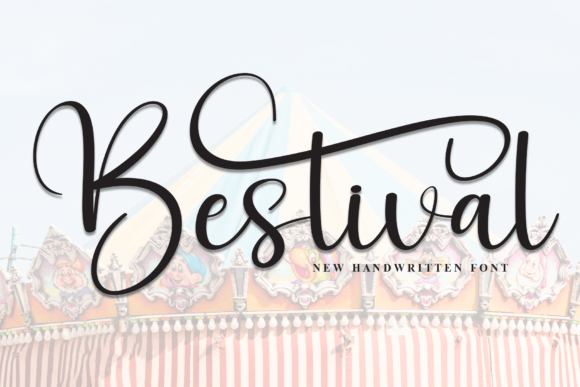
Introducing Bestival Font: Elevate Your Designs with Elegance and Charm
In the world of typography, a font can make or break the aesthetic of a project. For designers and crafters seeking to infuse their work with a touch of sophistication and modern flair, Bestival Font is an exceptional choice. This stylish handwritten script font is designed to bring elegance, warmth, and a personal touch to a variety of applications, from branding and invitations to social media content.
The Essence of Bestival Font
Bestival Font stands out with its flowing strokes and organic curves, which contribute to its unique charm. Unlike more traditional fonts, Bestival offers a refreshing blend of classic elegance and contemporary style. Its characters are meticulously crafted to convey a sense of refinement and luxury, making it an ideal choice for projects that demand a high level of sophistication.
Key Features of Bestival Font
- Elegant and Modern Design: Bestival Font boasts a stylish and modern appearance, perfect for designers looking to add a touch of class to their work.
- Handwritten Script: The font’s handwritten nature gives it a personal and approachable feel, making it suitable for a wide range of applications.
- Flowing Strokes and Organic Curves: These characteristics contribute to the font’s elegance and charm, setting it apart from more conventional typefaces.
- Versatility: Bestival Font can be used in various contexts, including branding, invitations, social media posts, and more.
Applications of Bestival Font
The versatility of Bestival Font makes it an excellent choice for numerous design projects. Here are some of the ideal applications for this beautiful typeface:
Branding
For businesses looking to establish a strong brand identity, Bestival Font offers a sophisticated and modern solution. Its elegant appearance can help convey a sense of luxury and quality, making it perfect for high-end brands, boutique businesses, and creative agencies.
Invitations and Stationery
Bestival Font adds a touch of class and personalization to invitations, greeting cards, and other stationery items. Its unique charm makes it an excellent choice for weddings, baby showers, and other special occasions.
Social Media and Digital Content
In the realm of social media, Bestival Font can help elevate your content and make it stand out. Whether you’re creating promotional graphics, quotes, or blog posts, this font’s elegance and modernity will undoubtedly capture your audience’s attention.
Why Choose Bestival Font?
With so many fonts available, why should Bestival Font be your go-to choice? Here are a few compelling reasons:
- Unique and Memorable: Bestival Font’s distinctive style ensures that your designs will stand out from the crowd.
- Easy to Read: Despite its elegant and cursive nature, Bestival Font remains highly legible, making it suitable for both headings and body text.
- Highly Versatile: This font can be used across various platforms and applications, from print materials to digital content.
Bestival Font is a stylish and sophisticated typeface that brings a unique blend of elegance and modern flair to any project. Its flowing strokes, organic curves, and handwritten charm make it an ideal choice for designers and crafters looking to add a personal touch to their work. Whether you’re working on branding, invitations, social media content, or any other design project, Bestival Font is sure to elevate your creations and leave a lasting impression.